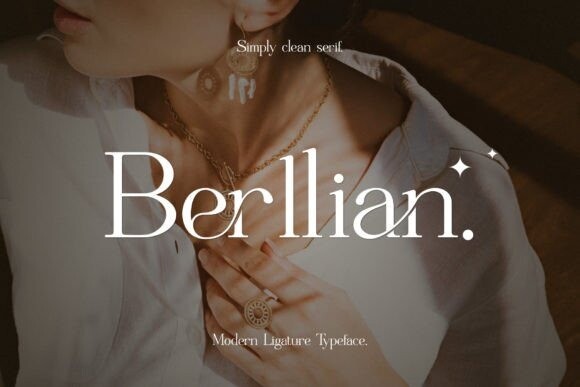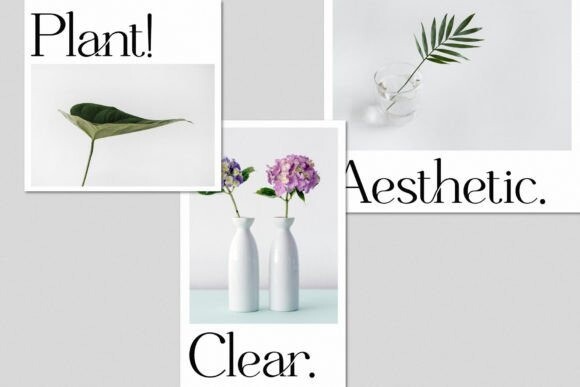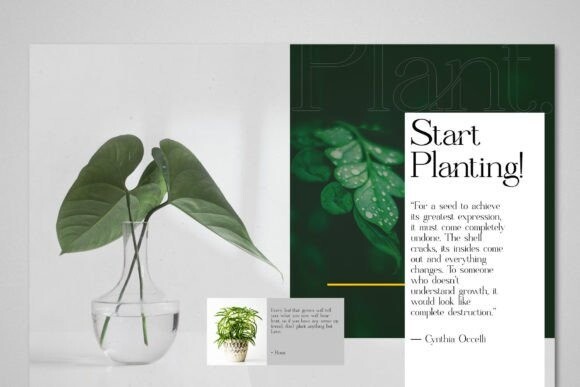
Berllian Font
Berllian is an elegant, luxurious serif font. Fall in love with its incredibly versatile style and use it to create gorgeous wedding invitations, beautiful stationary art, eye-catching social media posts, and much more! This font is PUA encoded which means you can access all the glyphs and ligatures with ease!